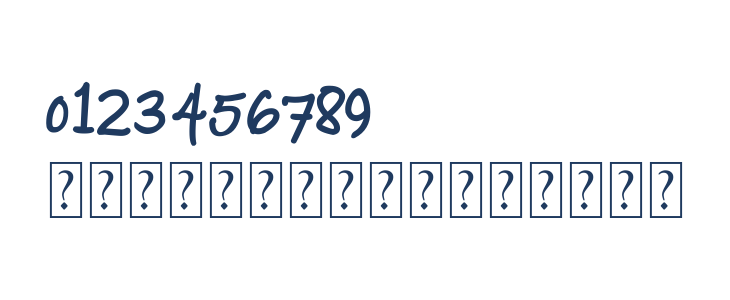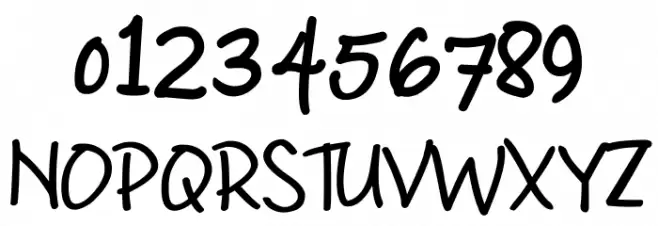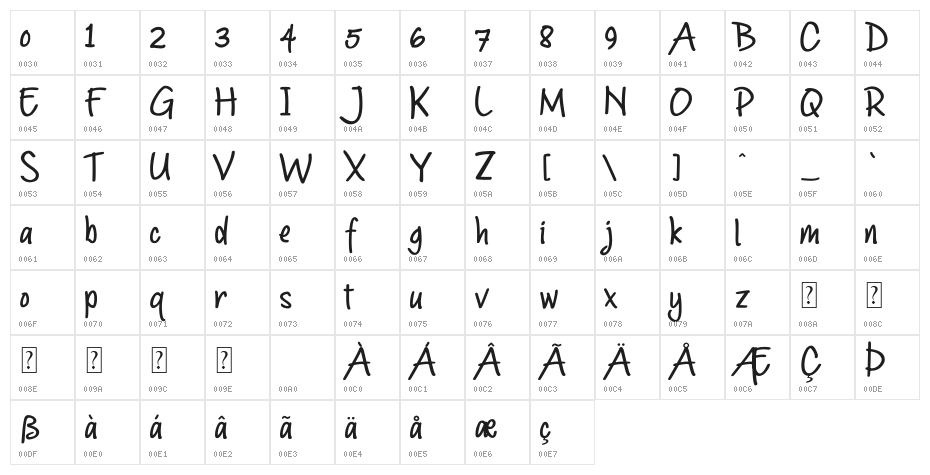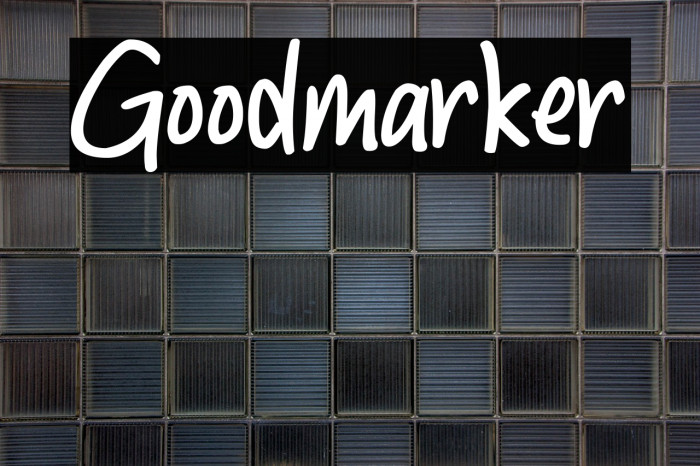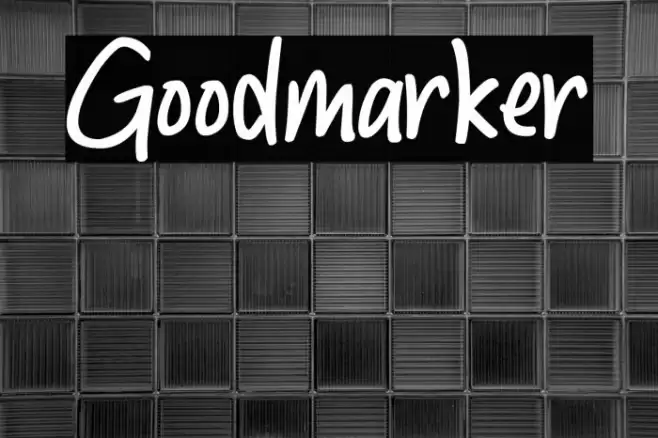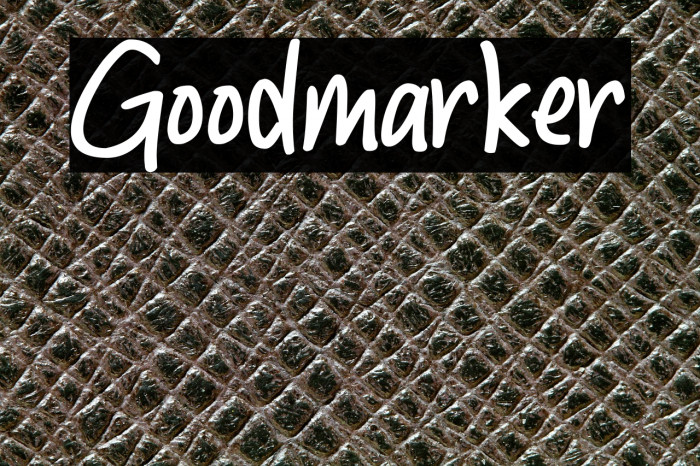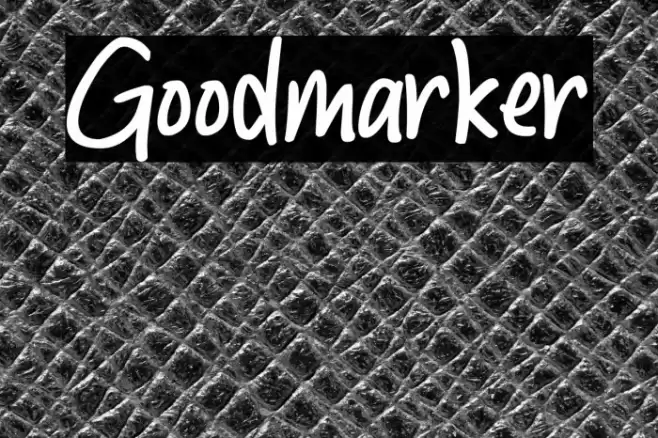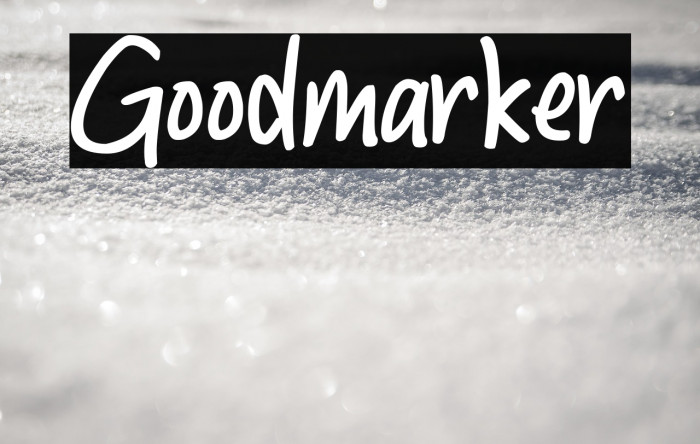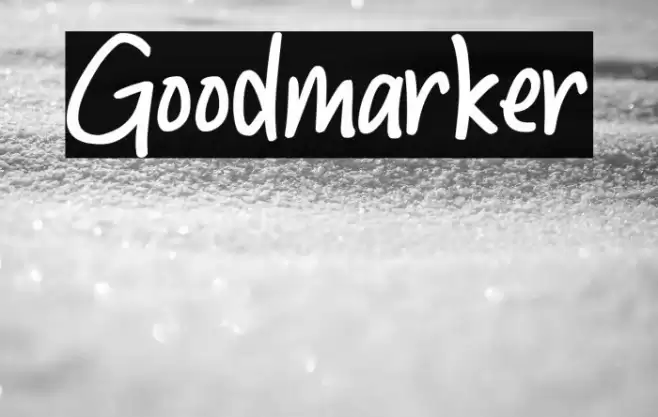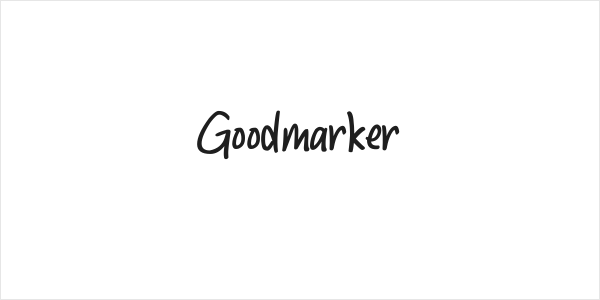
Goodmarker Font
Goodmarker Description
This font exudes a playful and casual handwritten style, characterized by its smooth, flowing strokes and slightly irregular letterforms. The uppercase and lowercase letters maintain a consistent style, with rounded edges and a friendly appearance. The numerals and special characters complement the alphabet with the same informal and approachable design. The font's overall aesthetic is reminiscent of a marker or brush pen, making it ideal for projects that require a personal touch or a relaxed vibe.
| Proposed Projects | Ideal for greeting cards, invitations, personal branding, social media graphics, and children's book covers. |